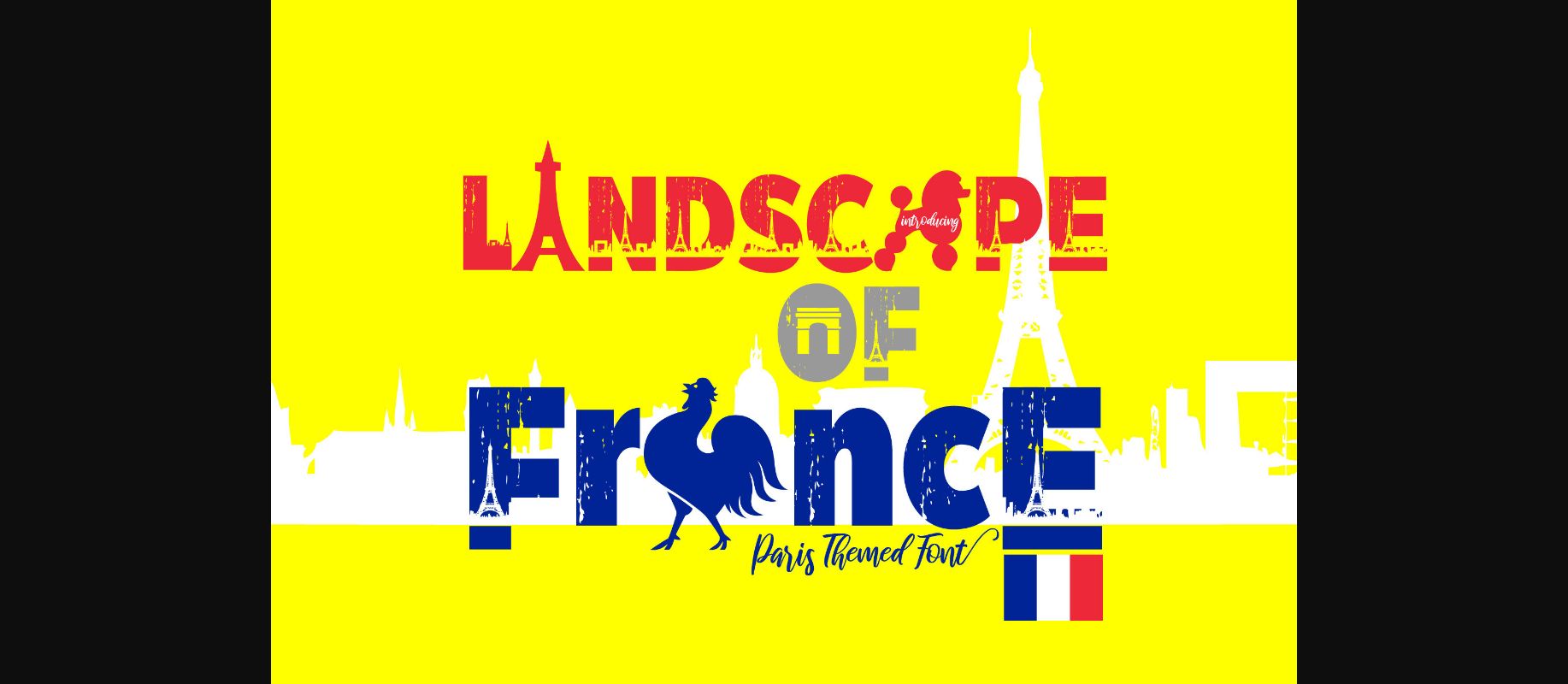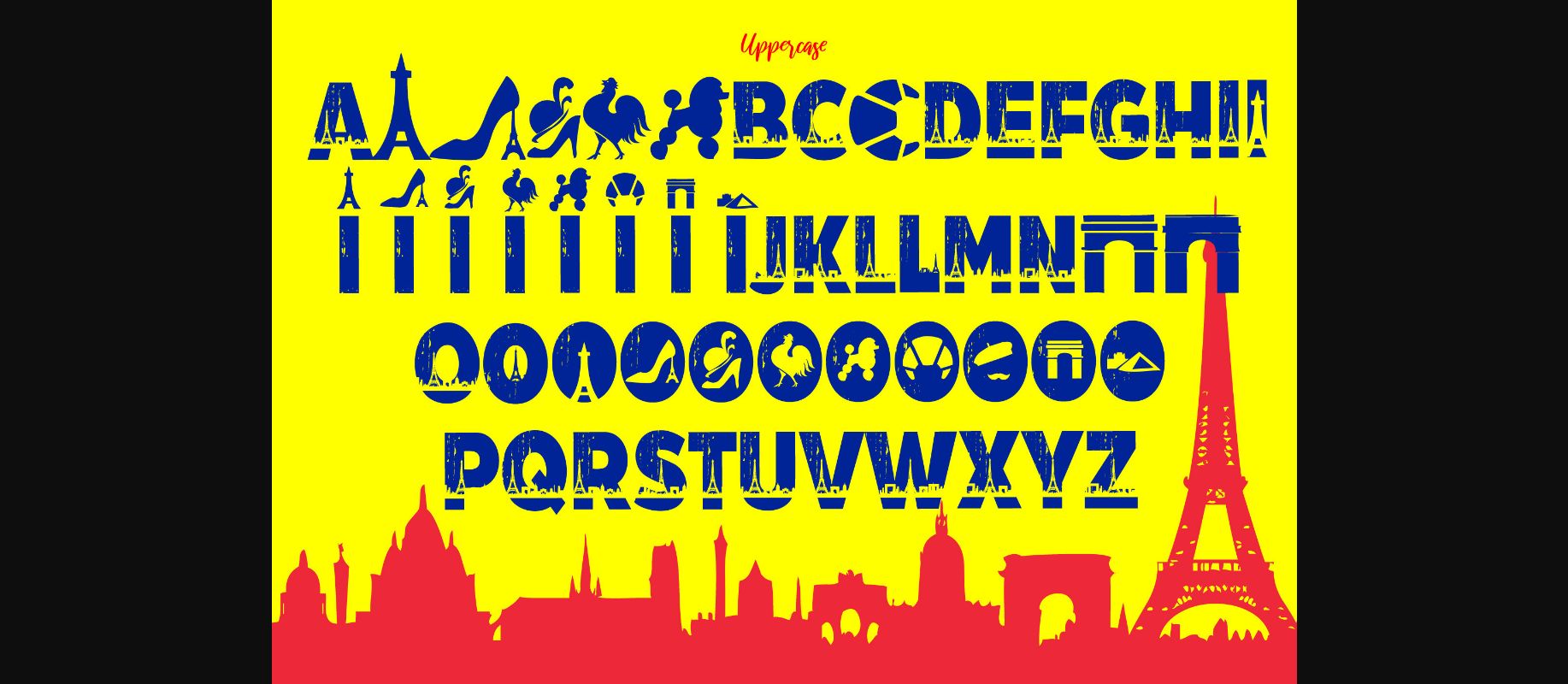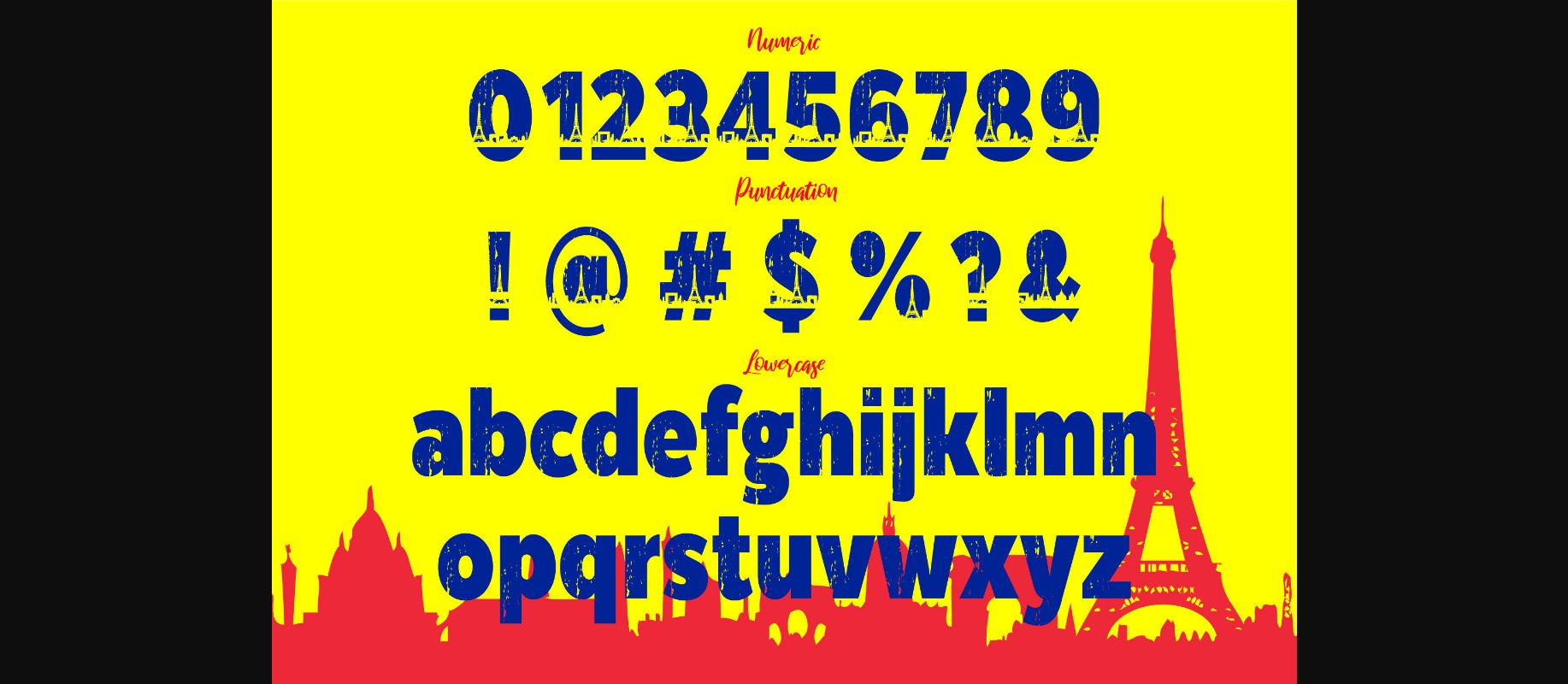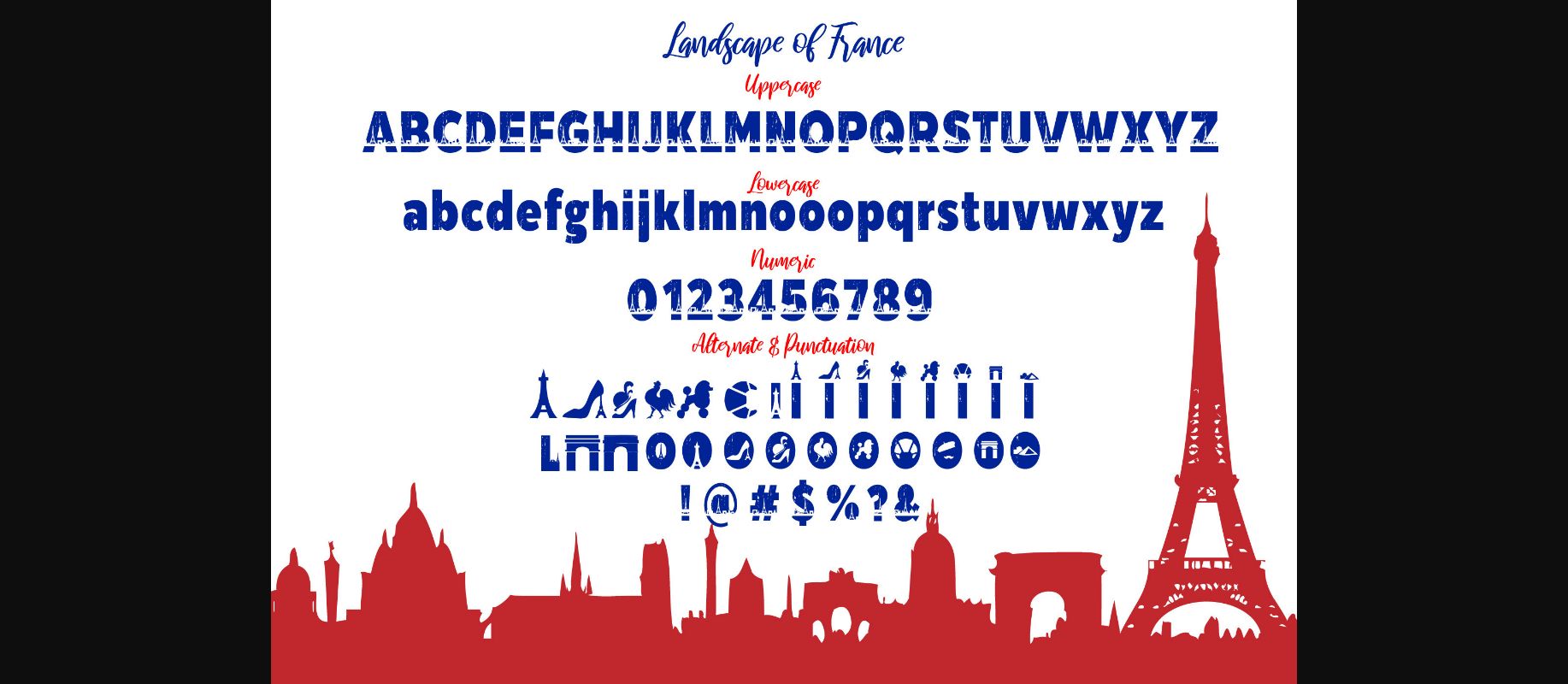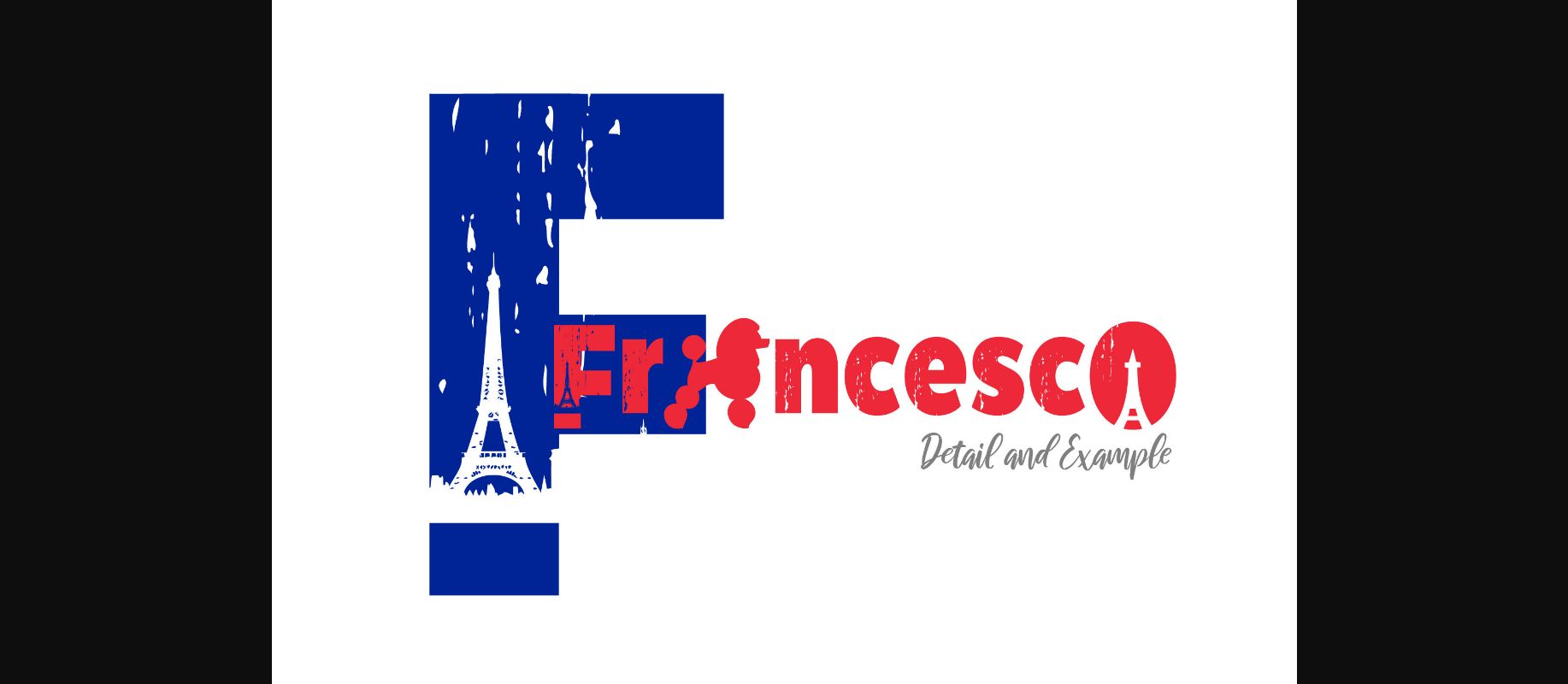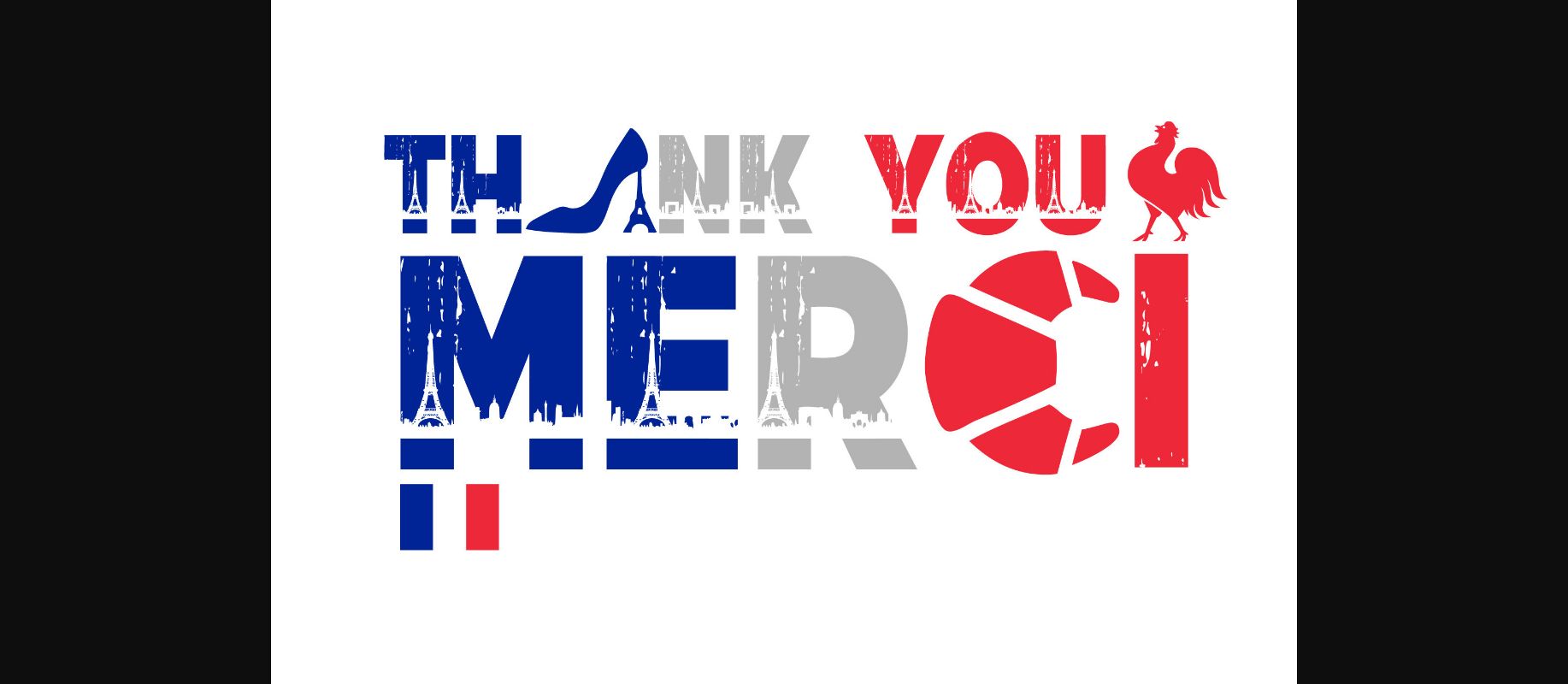
About Landscape of France Font
Landscape of France is a bold and incredibly cool decorative font. Whether you’re using it for a logo, or website, or creating something totally unique, this versatile typeface will give your project just the right amount of style. Have fun with this beautiful font and explore its endless variations.